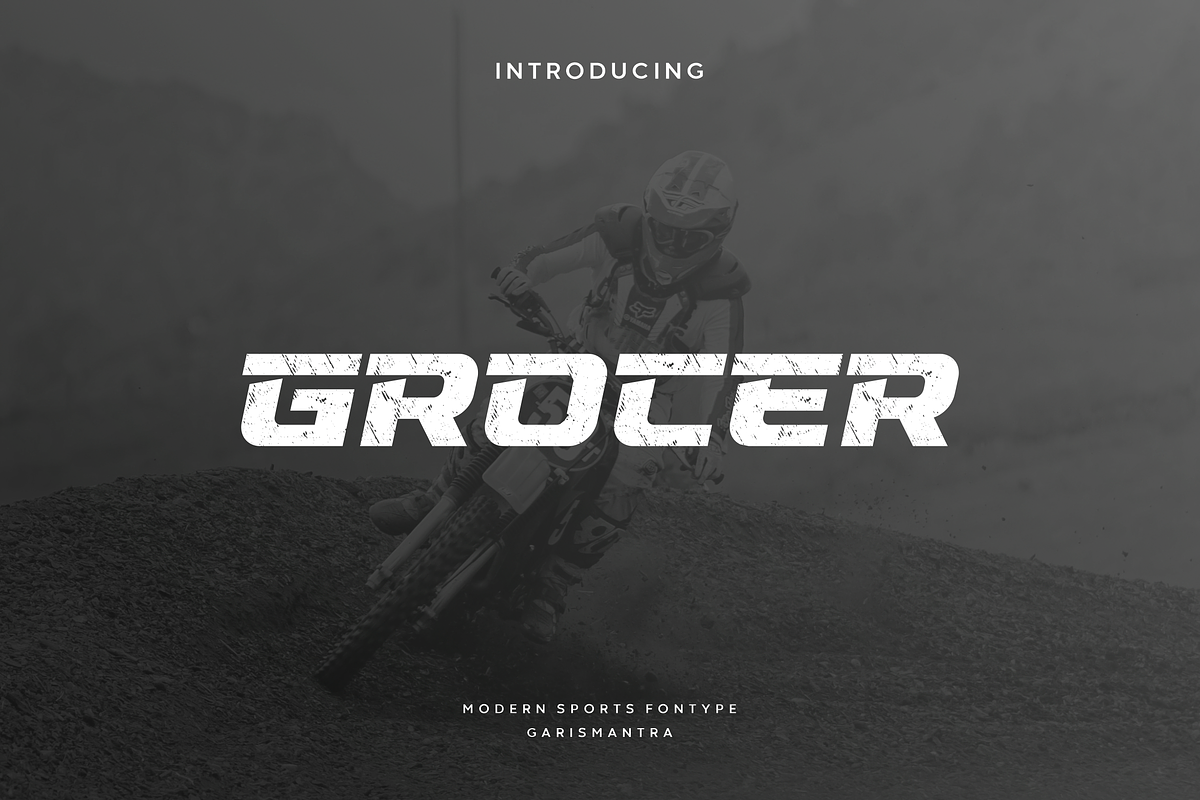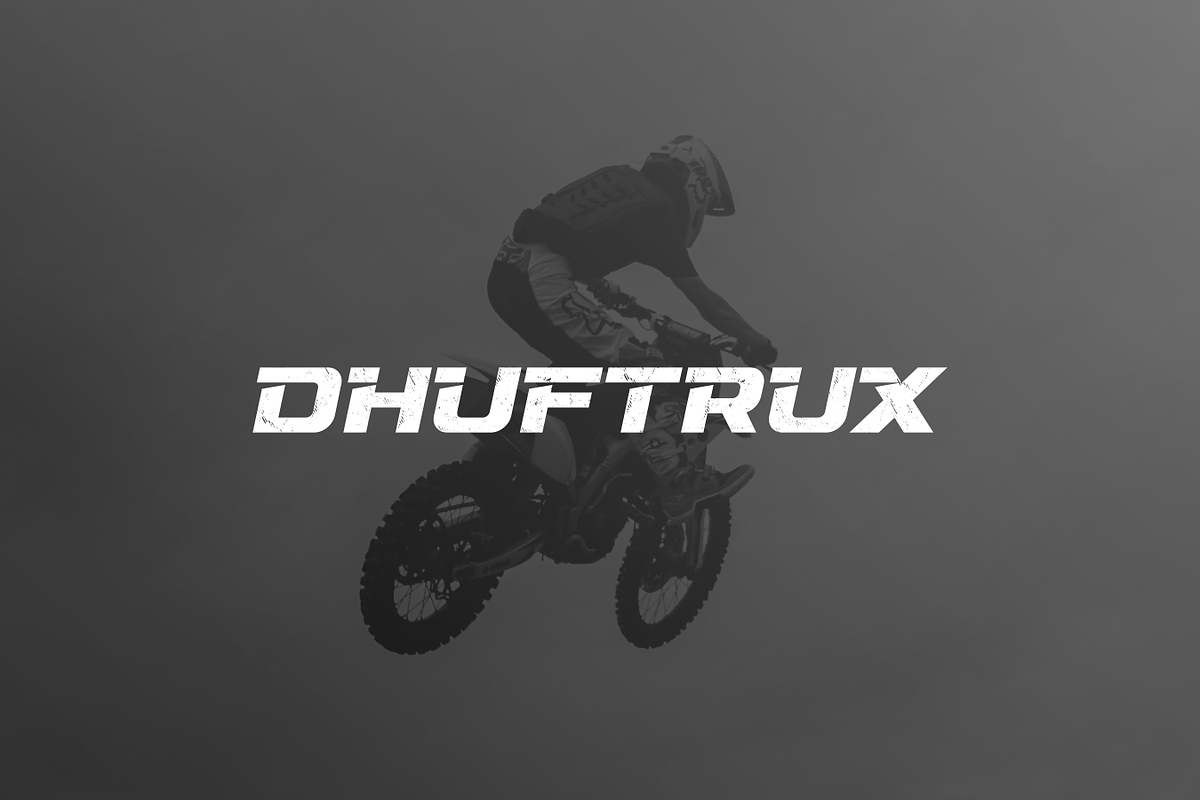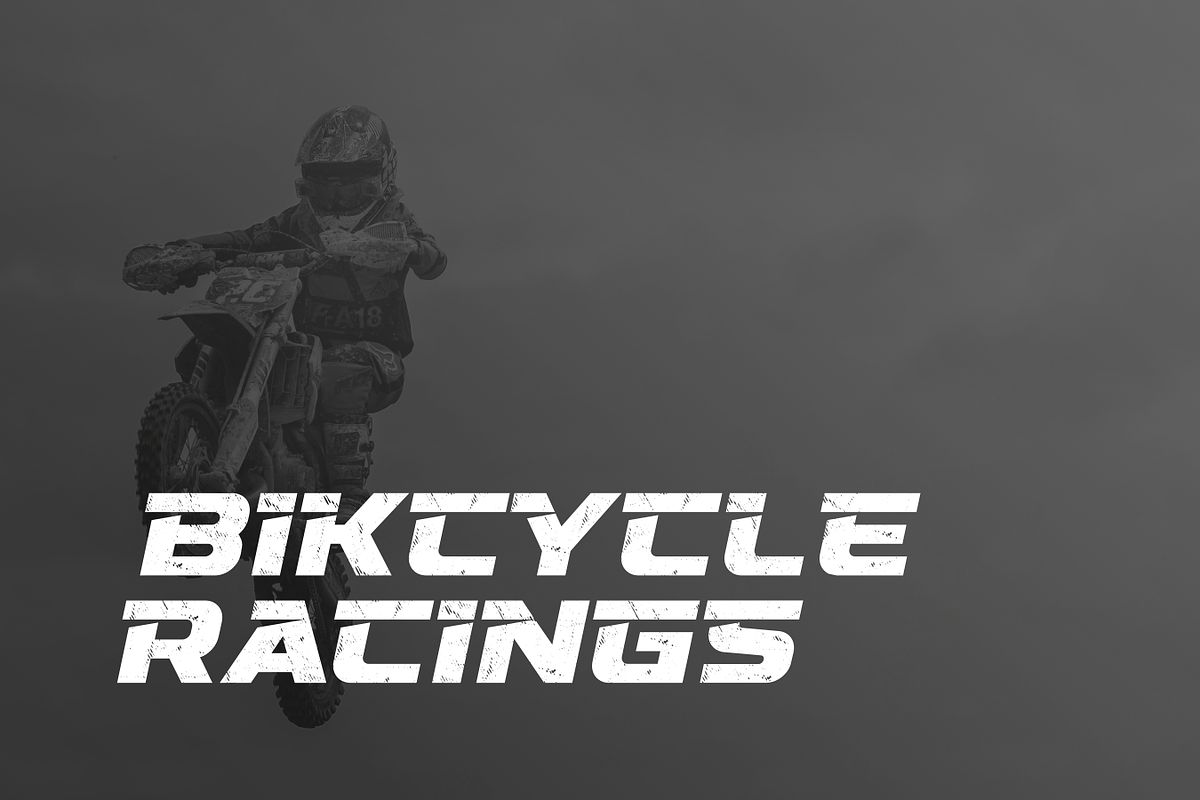
Grocer
Grocer is an awesome sports font with a wide, italicized look, modern cutouts, a dynamic slant that looks masculine. Ideal for fast car racing sports titles, running matches, cycling, logos, games, automotive, monograms or other modern dynamic text. Grocer delivers a dirty ink-swept effect, creating an effect of power and speed. Designed as a fast and dynamic font, but with a slightly different font design, take a look and grab it right away.